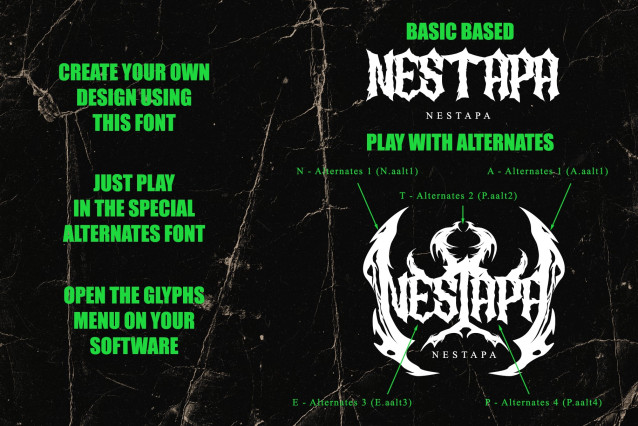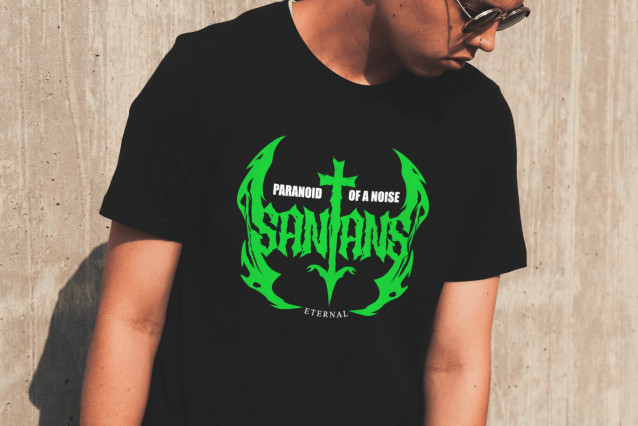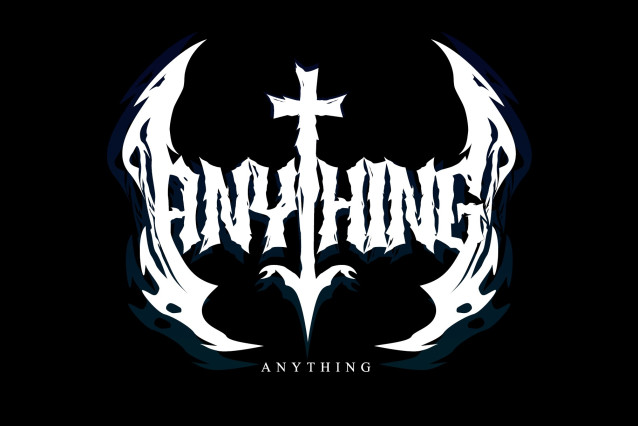
Mesomarem Death Metal Font
Mesomarem Death Metal Font is the Black Metal – Death Metal – Trash Metal or any Metal Music display font with all caps style looks and feel nice balanced.
Created your design just with the play alternates font
Honestly it works perfectly for headlines, logos, posters, packaging, T-shirts and much more for branding and anything designs.